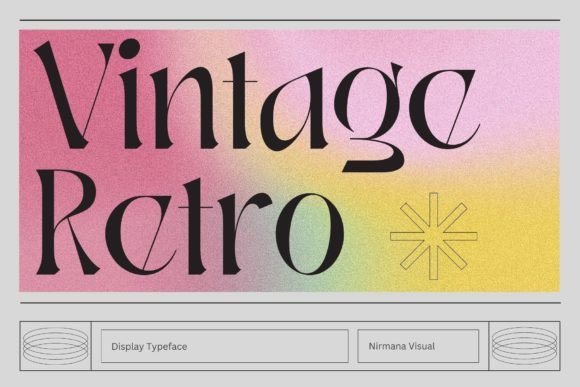
Adorn your designs with the allure of the past, introducing Vintage Retro Font – a captivating display font that evokes the grandeur of the Renaissance era. Inspired by the exquisite artistry of a bygone time, Vintage Retro is an ode to timeless beauty.
Step into a world where elegance meets modernity. Vintage Retro's meticulously crafted characters exude a charm that transcends time. Each letter is a masterpiece, imbued with the spirit of history and the allure of the present. Whether you seek to craft logos that command attention or social media posts that exude sophistication, Vintage Retro is your perfect companion.
With its innate versatility, Vintage Retro effortlessly adapts to a myriad of creative endeavors. From advertisements that captivate audiences to product designs that radiate exclusivity, Vintage Retro is the key to unlocking your design potential. Its timeless appeal ensures that your creations will stand the test of time, leaving a lasting impression on all who behold them.
Experience the brilliance of Vintage Retro today. Transform your designs into works of art, imbued with the essence of history and the promise of the future. Let Vintage Retro be your guide on a journey through time, where imagination reigns supreme.
- Exquisite typographic harmony
- Perfect for logos & branding
- Ideal for social media posts
- Suitable for advertisements & product designs